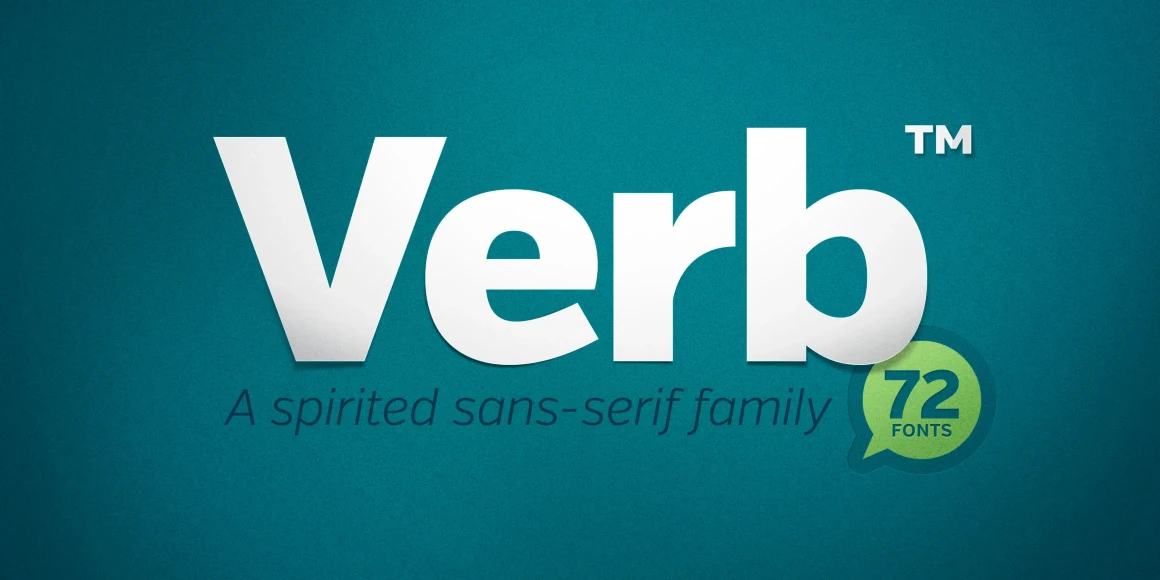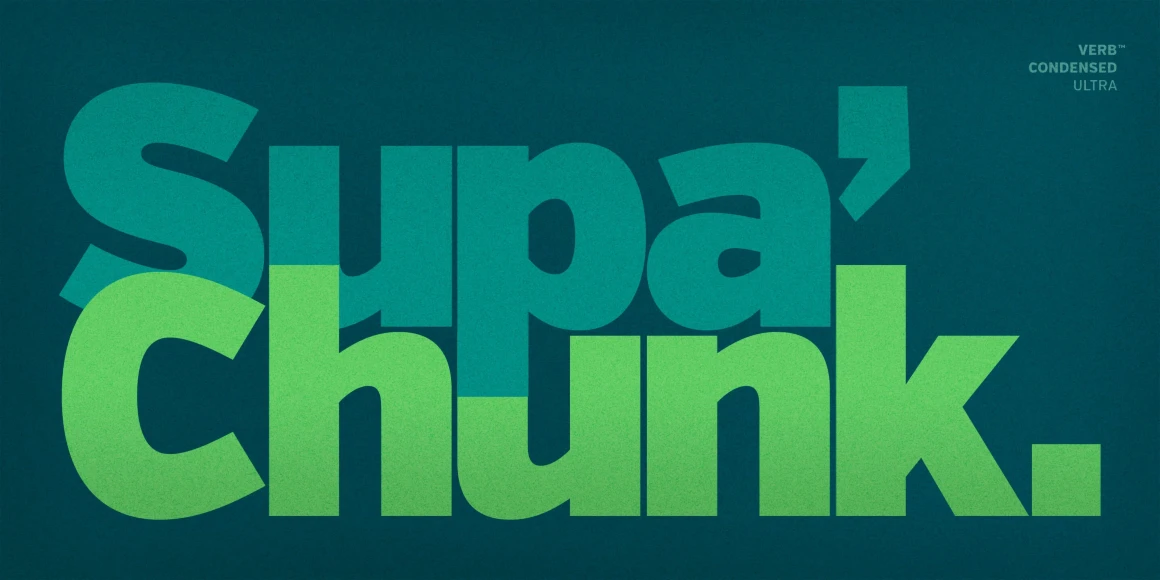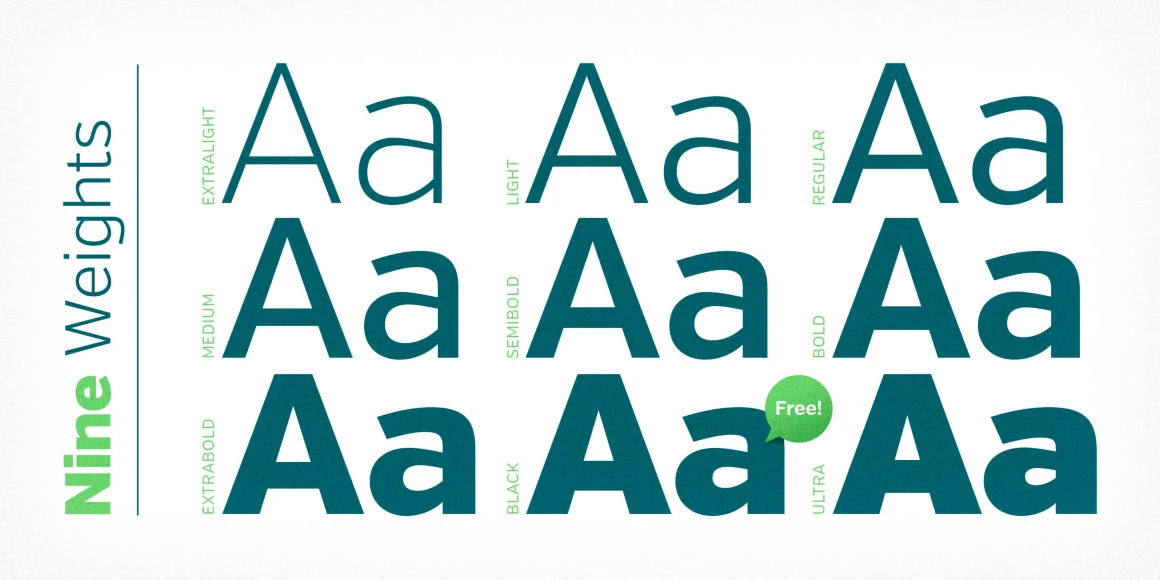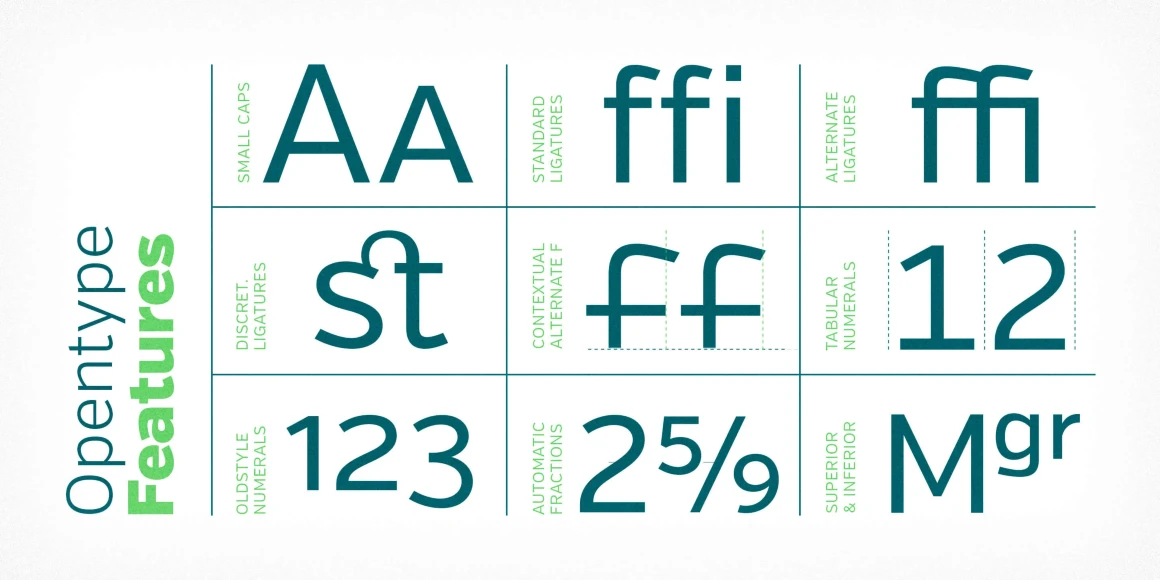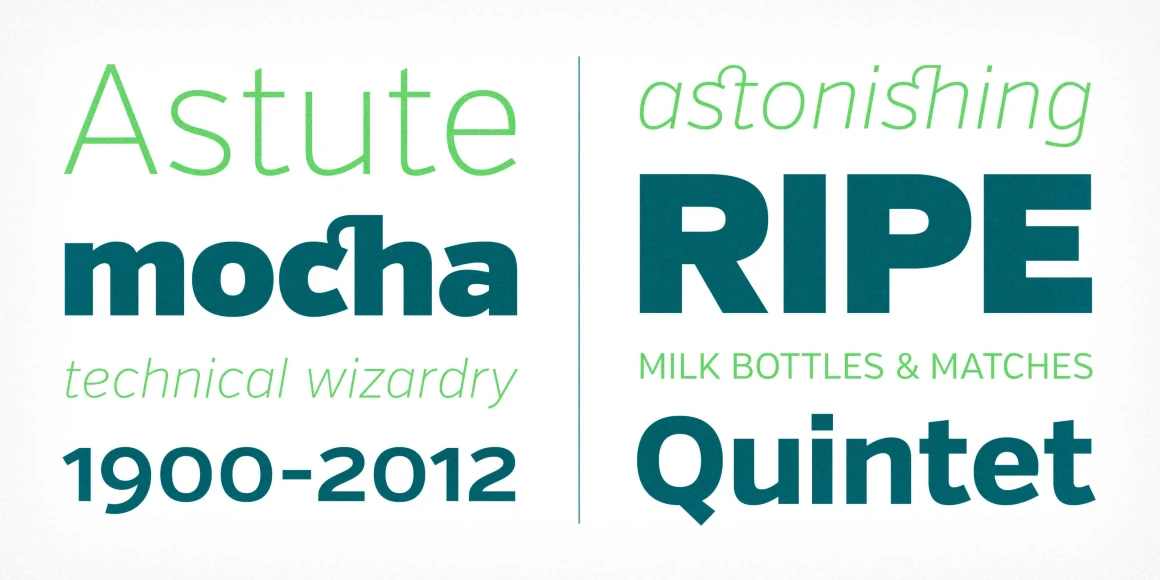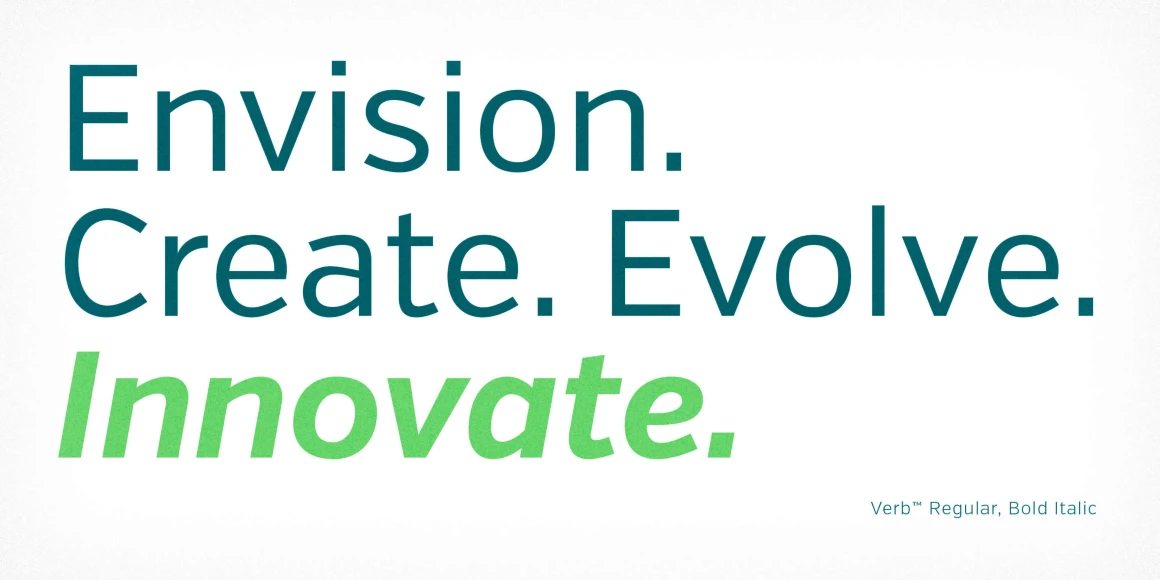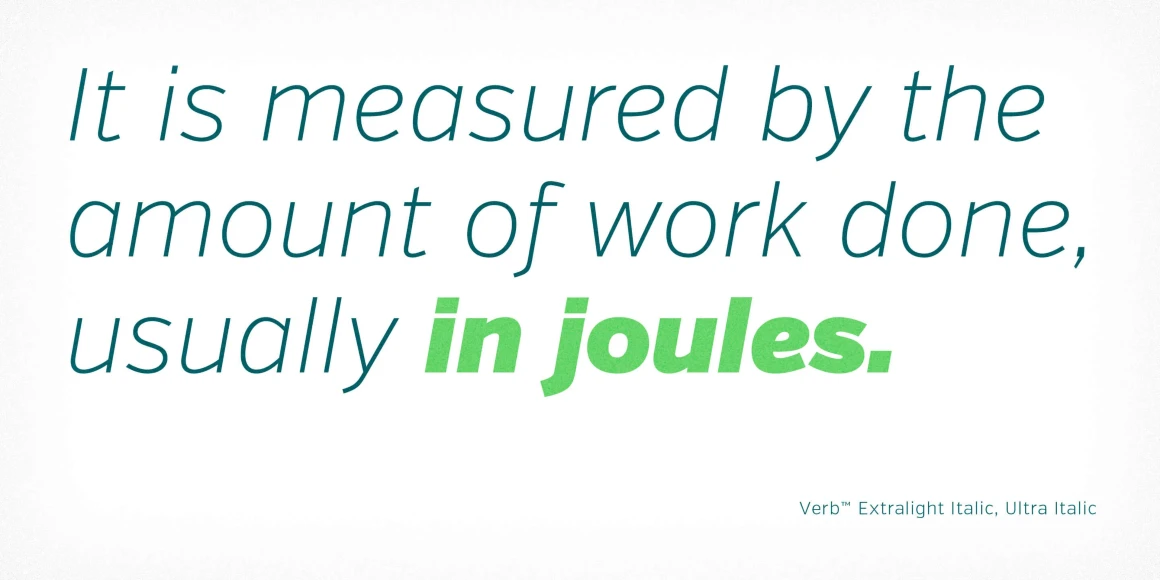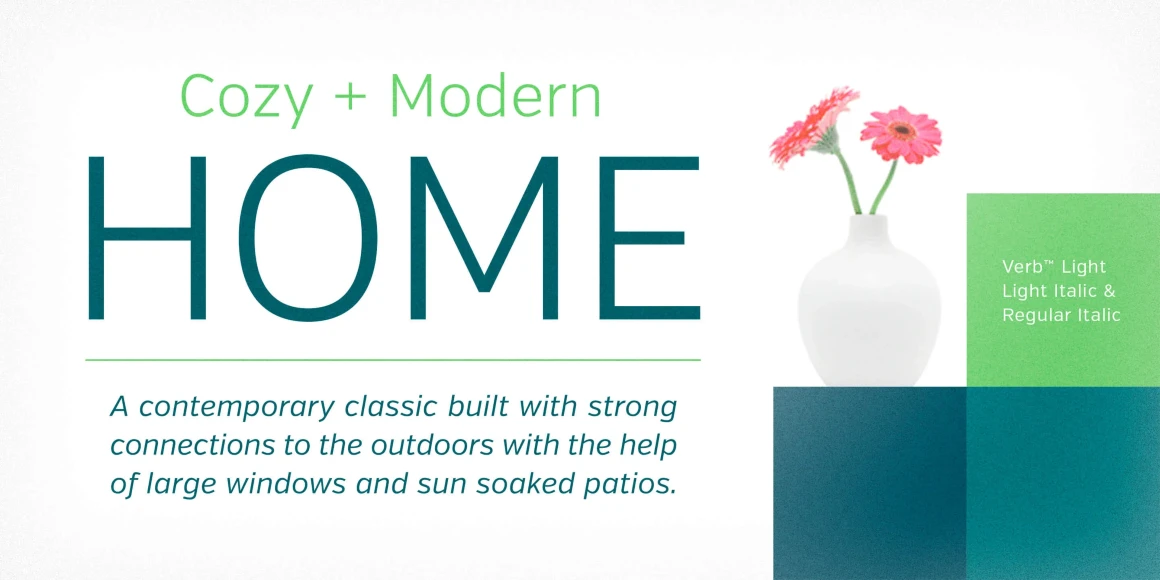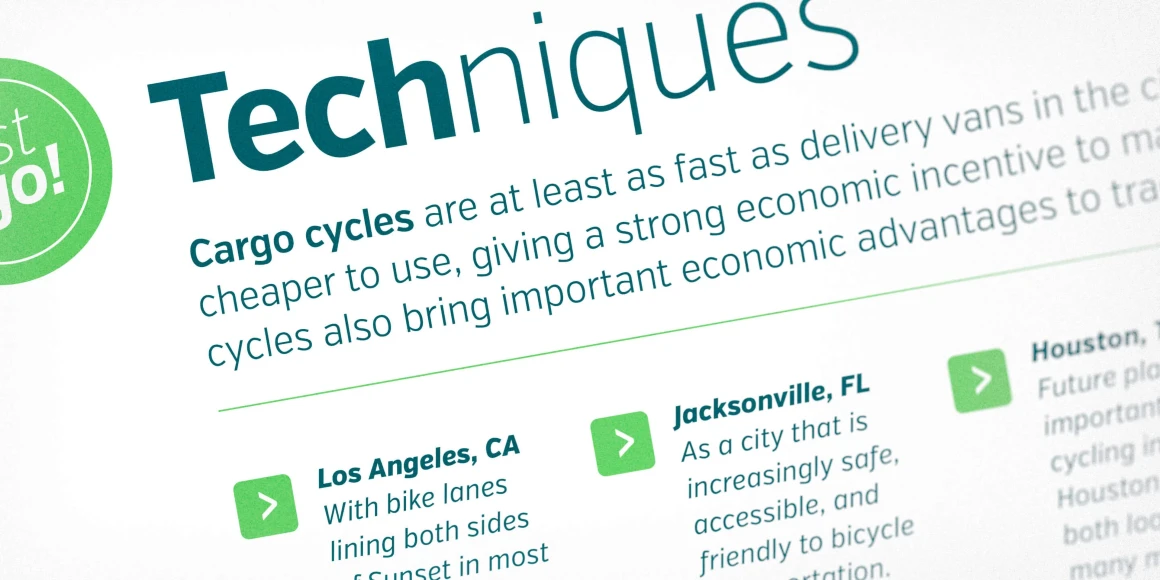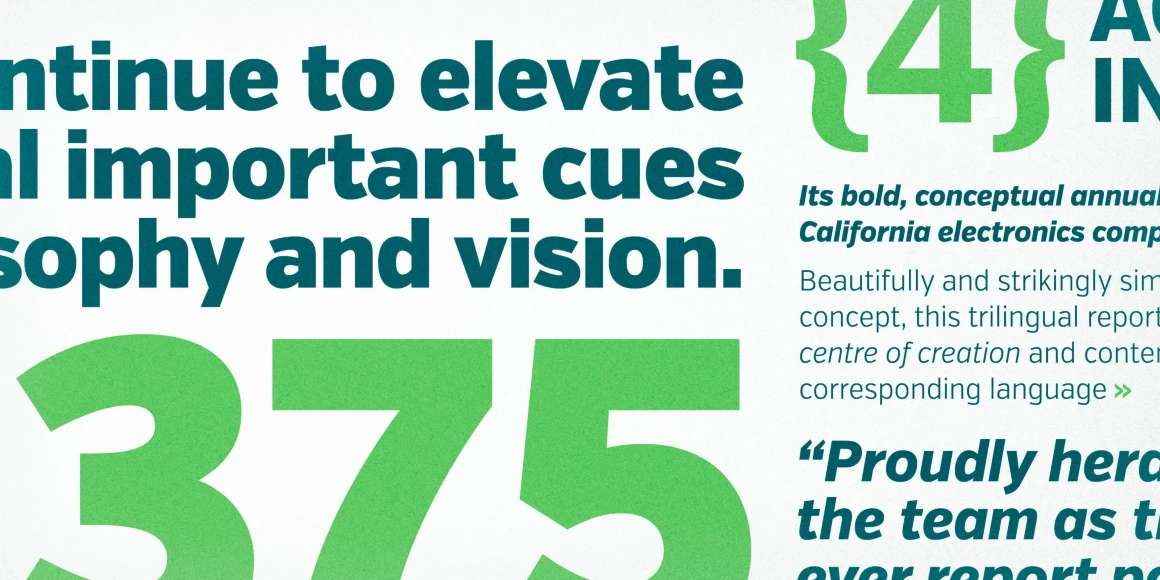
Verb is a friendly and approachable sans family. But, it exchanges huggable roundness for confidence and energy. Verb is lively, motivated, and industrious. It’s packed with features including true italics, small caps, ligatures, old style and tabular numerals, extensive language support, and more. The complete Verb series has 72 styles and includes Regular, Condensed, Extra Condensed, and Compressed versions.
Designed by Ryan Martinson